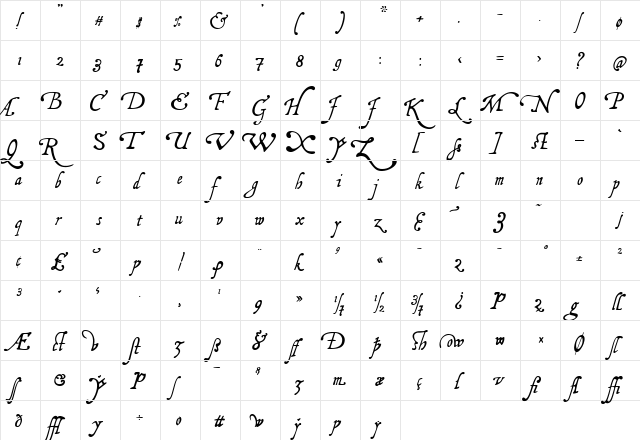
Italic hand ancient
Italic hand ancient flows with the natural rhythm of handwritten lettering, making it ideal for designs that call for warmth and personal expression.
Font Pairing: Combine Italic hand ancient with a simple geometric sans for maximum contrast — the tension between flowing curves and clean structure is a classic typographic pairing.
Pro Tip: Use Italic hand ancient for short runs of text — names, titles, or taglines. Extended body copy in script faces tires the eye quickly.